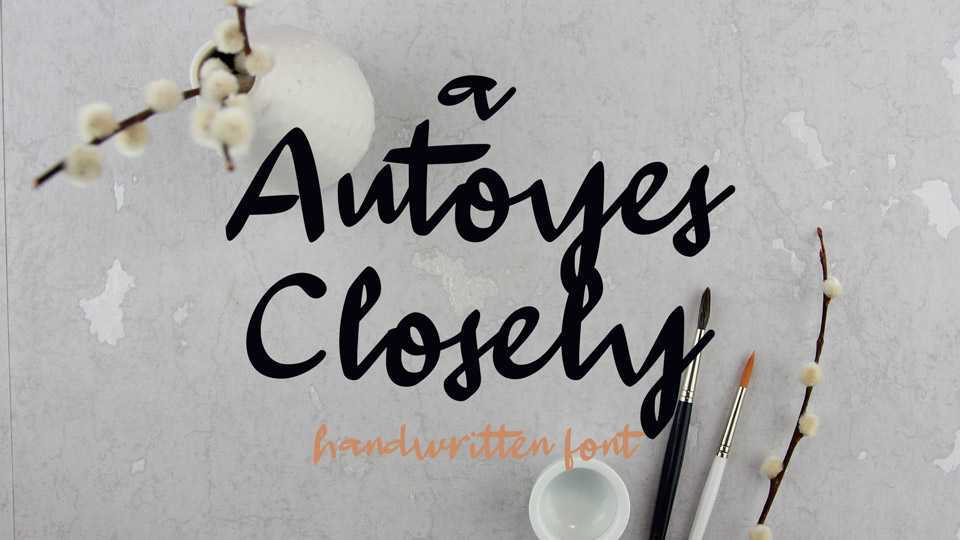
Download Autoyes Closely font, a casual handwritten script with a free flow. Autoes Closely font fits for everyday notes, cards, quotes, socail media messages, crafts and more.
Designer: Wahyu Eka Prasetya